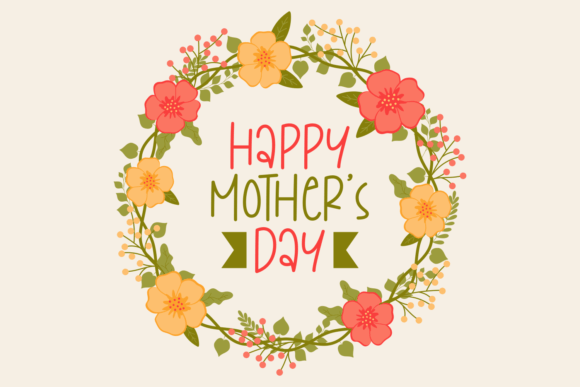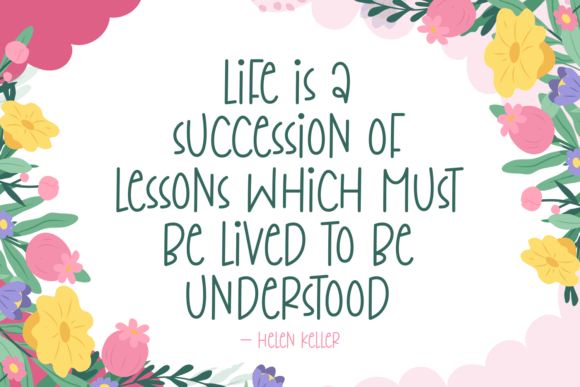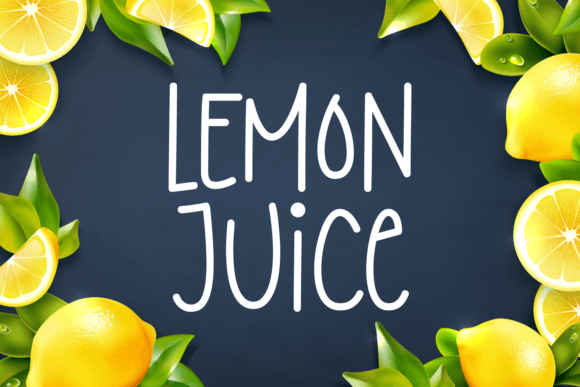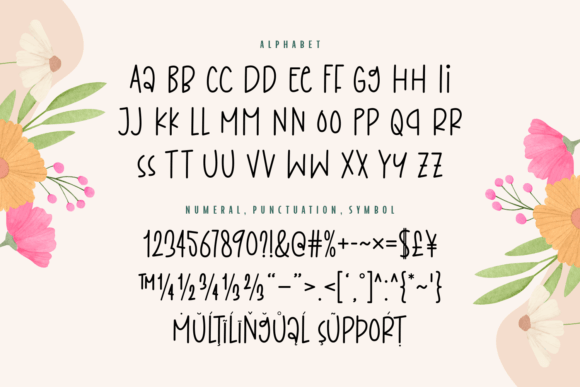
Introducing April Story Font: Elevate Your Designs with Elegance
In the world of typography, fonts play a crucial role in conveying the tone and aesthetic of a design. For designers and crafters seeking to add a touch of sophistication and style to their work, the April Story Font is an excellent choice. This minimalist and elegant font is designed to exude refinement and poise, making it perfect for a wide range of design applications.
The Characteristics of April Story Font
April Story Font is characterized by its sleek lines and bright, airy feel. The font’s minimalist approach to design ensures that it remains unobtrusive, allowing the content to take center stage while still providing a touch of elegance. The clean and crisp lines of April Story create a sense of luxury and refinement, making it an ideal choice for designers looking to elevate their work.
Why Choose April Story Font?
There are several reasons why April Story Font stands out from the crowd:
• Versatility: April Story Font is incredibly versatile, making it suitable for a wide range of design applications, from branding and advertising to packaging and digital media.
• Elegance: The font’s elegant design ensures that it adds a touch of sophistication to any design, making it perfect for luxury brands and high-end products.
• Readability: April Story Font is designed with readability in mind, ensuring that your content is easy to read and understand, even at small font sizes.
• Uniqueness: With its unique blend of minimalist and elegant design elements, April Story Font is sure to make your designs stand out from the crowd.
Using April Story Font in Your Designs
April Story Font can be used in a variety of design applications, including:
• Branding: Use April Story Font to create a luxurious and sophisticated brand identity that reflects your values and aesthetic.
• Advertising: Add a touch of elegance to your advertising campaigns with April Story Font, making your message stand out from the competition.
• Packaging: Use April Story Font to create eye-catching packaging that reflects the quality and sophistication of your product.
• Digital Media: April Story Font is perfect for digital media, including websites, social media, and email marketing campaigns.
Tips for Getting the Most Out of April Story Font
To get the most out of April Story Font, consider the following tips:
• Use it sparingly: April Story Font is a powerful design element, so use it sparingly to avoid overwhelming your design.
• Experiment with font sizes: April Story Font looks great at a variety of font sizes, so experiment with different sizes to find the one that works best for your design.
• Pair it with other fonts: April Story Font pairs well with other fonts, so don’t be afraid to experiment with different font combinations to create a unique look.
In conclusion, April Story Font is a versatile and elegant font that is perfect for designers and crafters looking to add a touch of sophistication and style to their work. With its sleek lines and bright, airy feel, this font is sure to elevate your designs to new heights of elegance. Whether you’re working on a branding project, advertising campaign, or packaging design, April Story Font is an excellent choice. So why wait? Let your creativity shine with April Story Font and take your designs to the next level.